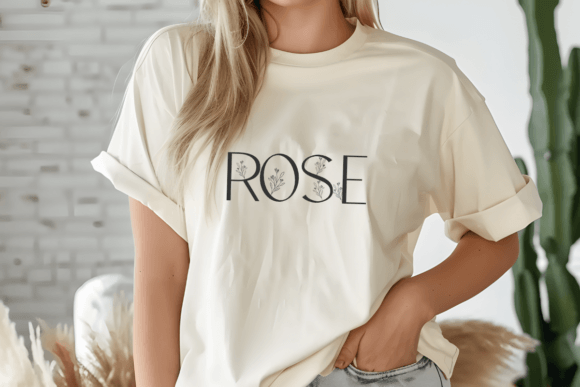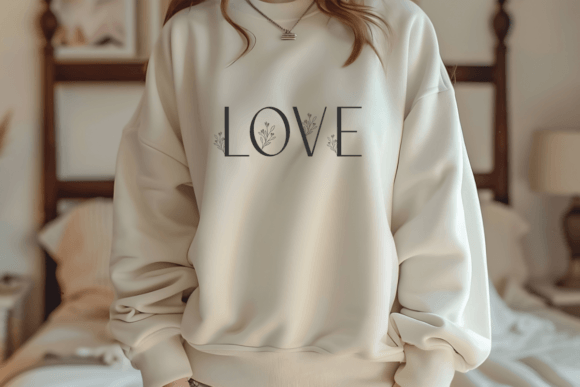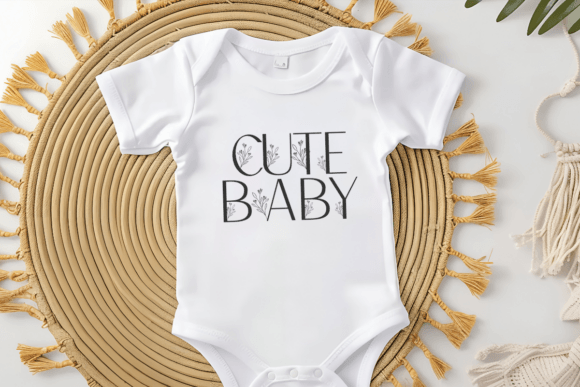
Where Creativity Blooms
Have you ever stared at a blank canvas, waiting for inspiration to strike? For many designers, the spark of creativity can come from the most unexpected places. Perhaps it’s a walk in the garden, a visit to a local flower market, or simply a glance at a beautiful bouquet. Whatever the trigger, the result is often a fusion of art and imagination that leaves a lasting impression.
For those who find themselves drawn to the beauty of nature, the Camellia Font offers a unique opportunity to combine the organic with the digital. This innovative font combines sans serif typography with stunning floral illustrations, creating a visually striking visual language that’s perfect for expressing your creative vision.
Whether you’re a seasoned designer or just starting out, the Camellia Font is a valuable tool in your creative arsenal, offering endless possibilities for stickers, logos, branding, and more.
Camellia Font Key Features
- Font Family: Camellia, with multiple font styles available including Regular, Italic, Bold, and Bold Italic.
- Unique Characteristics: Features a unique blend of traditional and modern design elements, with intricate details and elegant lines.
Designer Review: Camellia Font
First of all, I want to say that I really like the aesthetic of Camellia Font. It’s elegant and sophisticated, perfect for any design project that needs a touch of luxury ✨. The font is highly legible, making it easy to read even at smaller sizes. The rounded edges and subtle flair at the ends of the strokes give it a soft, feminine touch that’s hard to resist.
- ✨ Highly legible and easy to read, even at smaller sizes
- ✨ Elegant and sophisticated aesthetic that’s perfect for luxury projects
- ✨ Wide range of weights and styles to choose from
- ⚠️ Limited support for non-Latin scripts and languages
- ⚠️ May not be suitable for projects that require a more modern or edgy feel
Overall, I think Camellia Font is a great choice for any design project that needs a touch of elegance and sophistication. While it may have some limitations, its strengths far outweigh its weaknesses. With its wide range of weights and styles, it’s a versatile font that can be used in a variety of contexts. Just be aware of its limitations and choose it wisely.
Camellia Font is commonly used for:
- Formal event invitations
- Calligraphy and hand-lettering projects